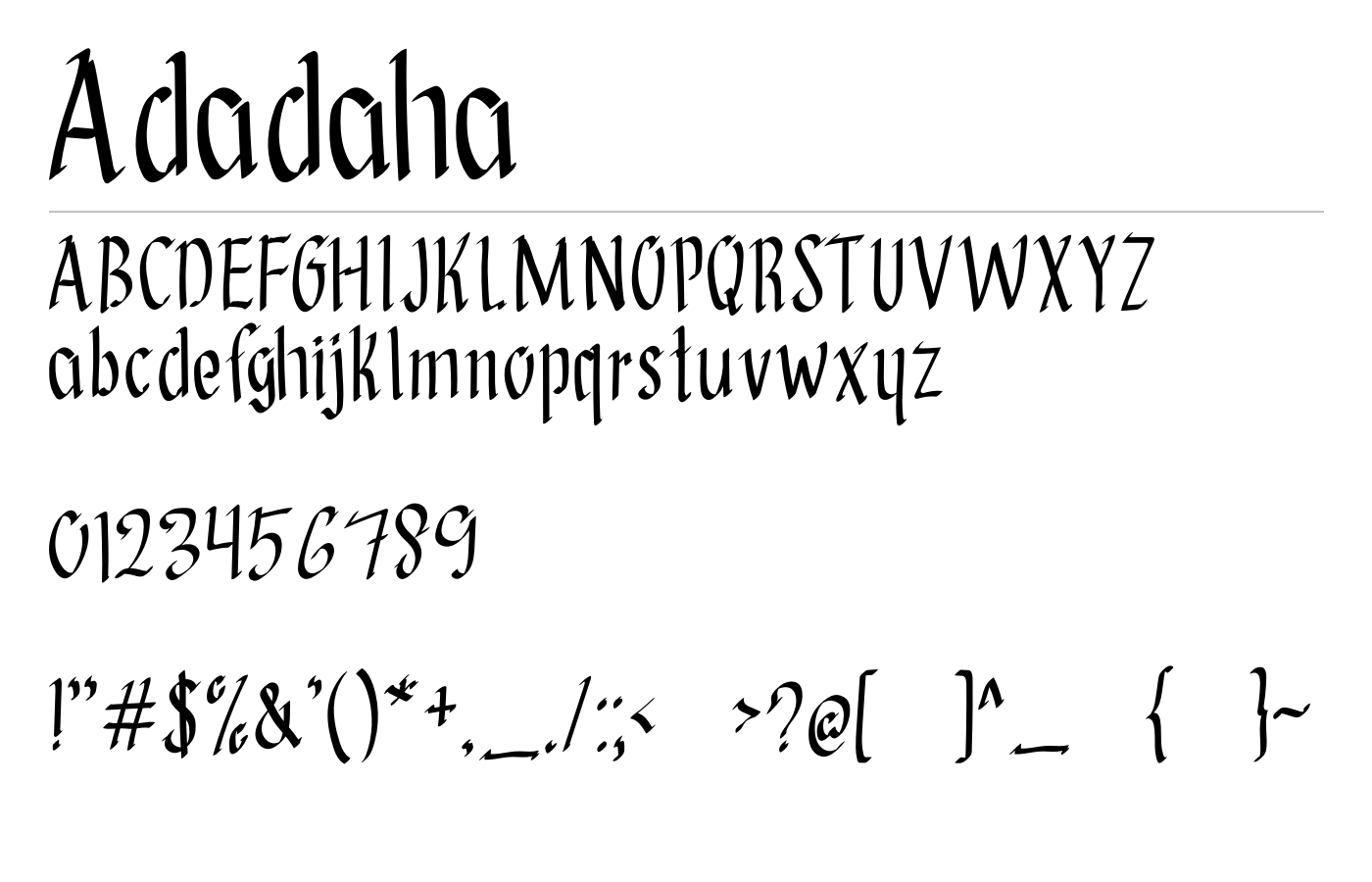
Adadaha is a distinctive serif font with a medieval, calligraphic feel, featuring sharp, angular strokes and high contrast between thick and thin lines. Its slightly condensed letterforms, unique character shapes, and elegant yet edgy style make it ideal for projects seeking a historic or gothic vibe, such as fantasy-themed branding, headlines, or decorative uses. This font works best where a dramatic and artistic impression is desired rather than for extended body text.
Adadaha Font
About Adadaha Font